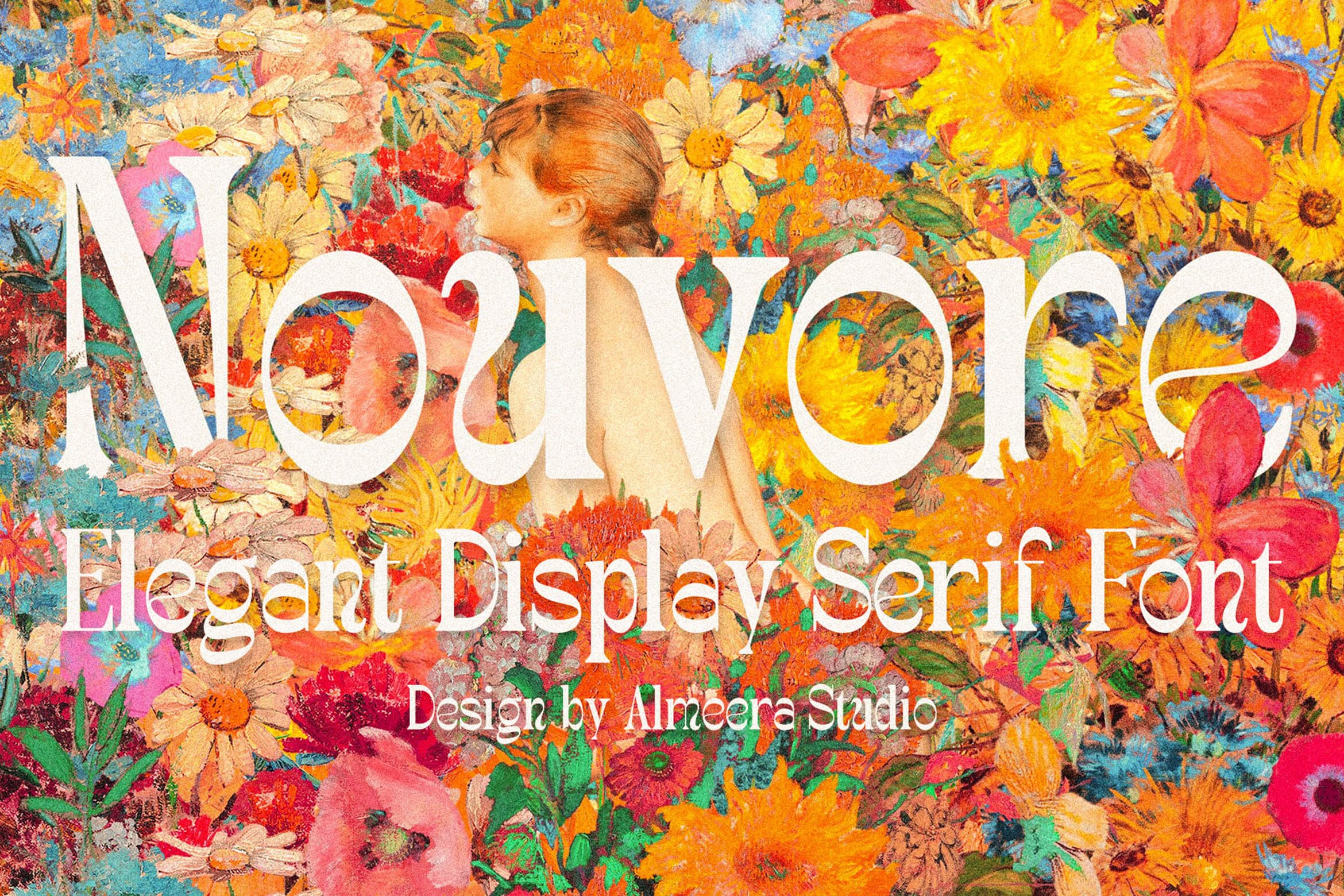
Unleashing Creativity with Nouvore Font: A Timeless Serif Choice In the ever-evolving landscape of design, the choice of typography can make or break a project. Enter Nouvore, a captivating display and simple serif font that marries elegance with ver...